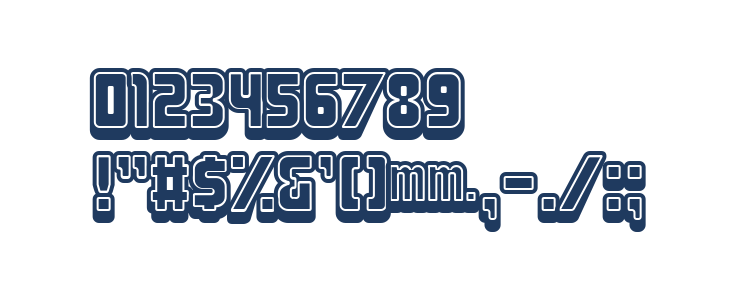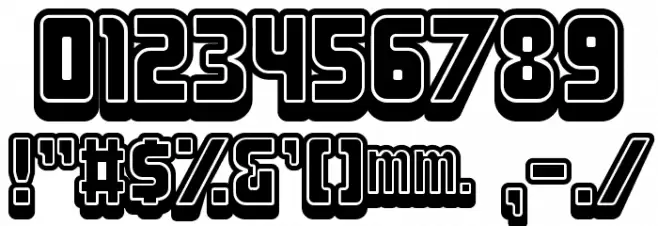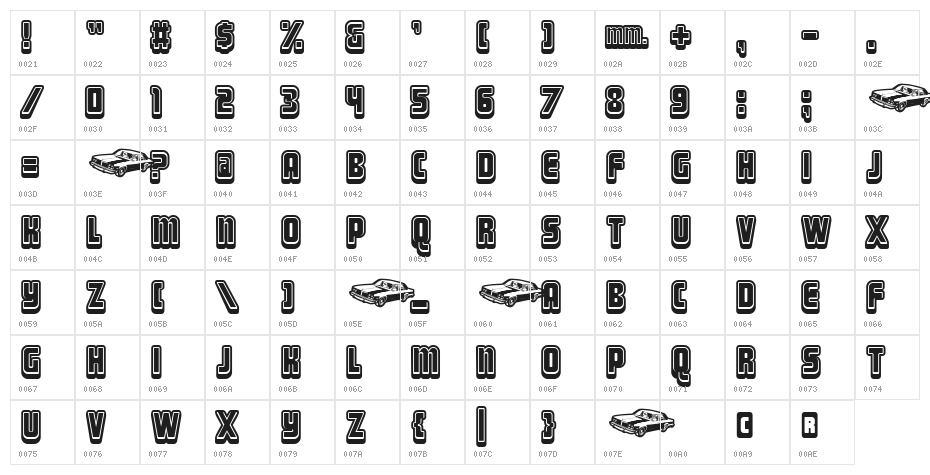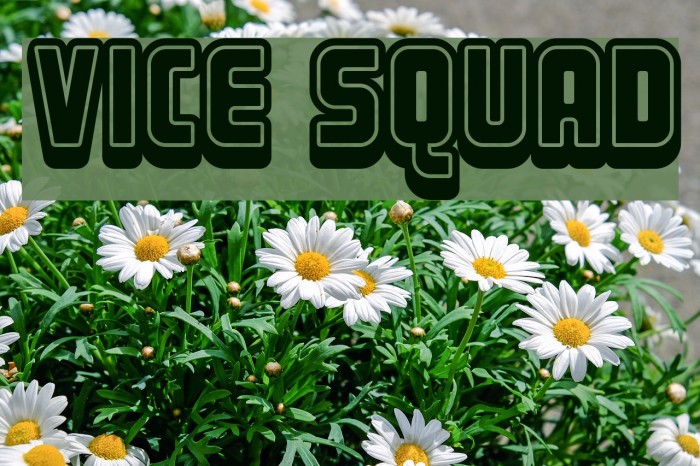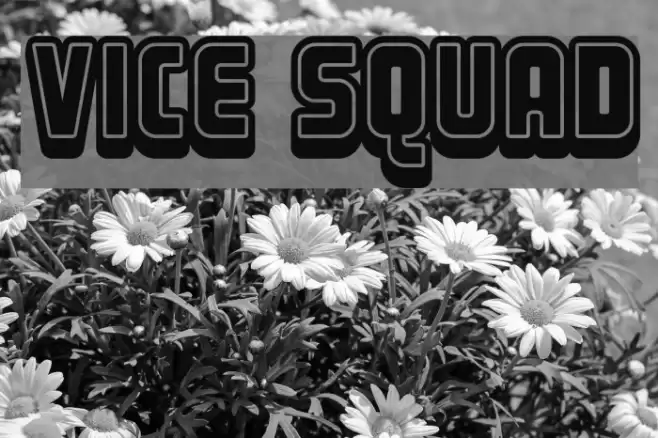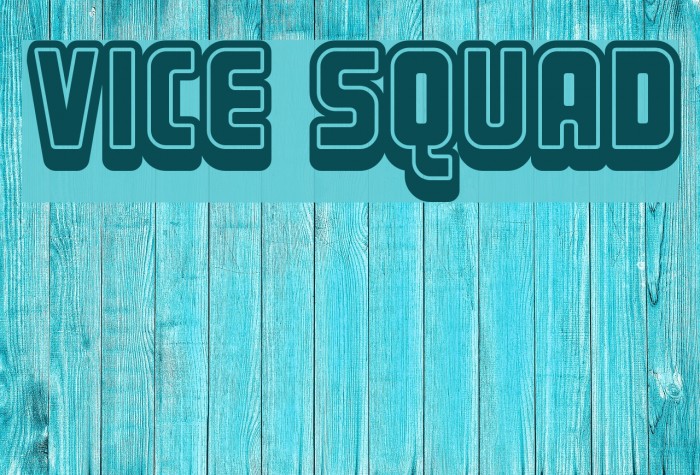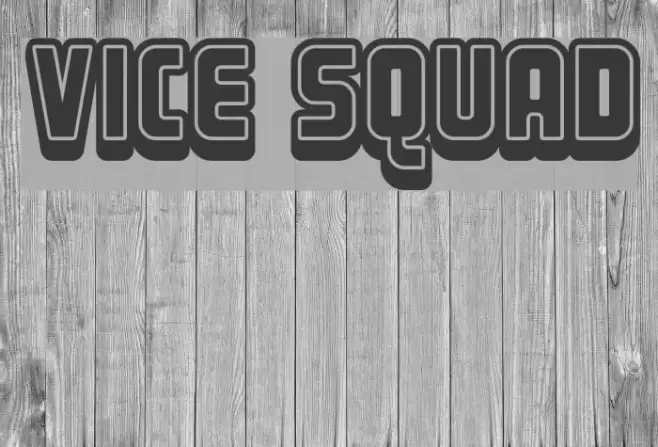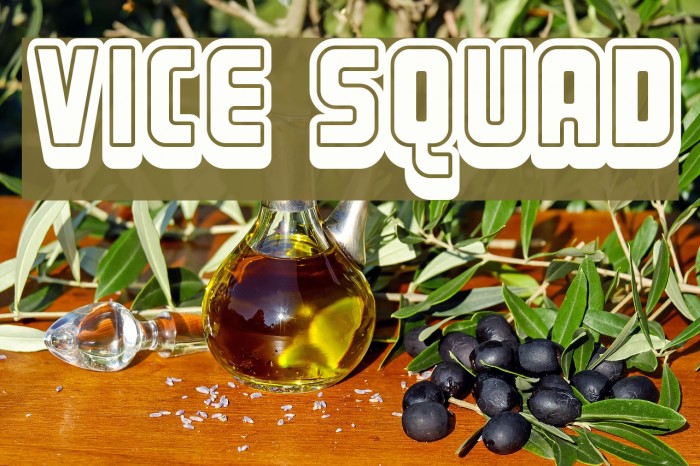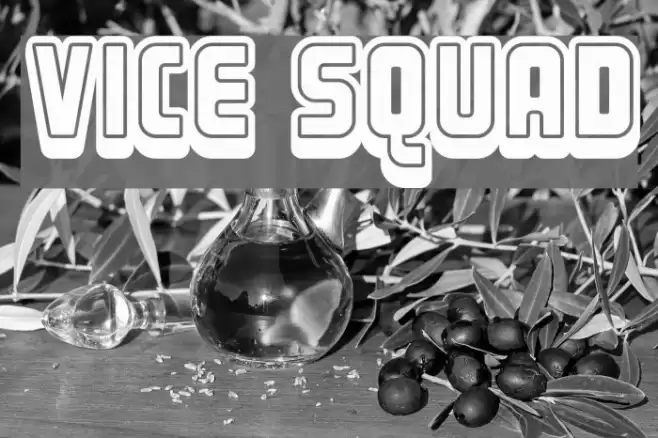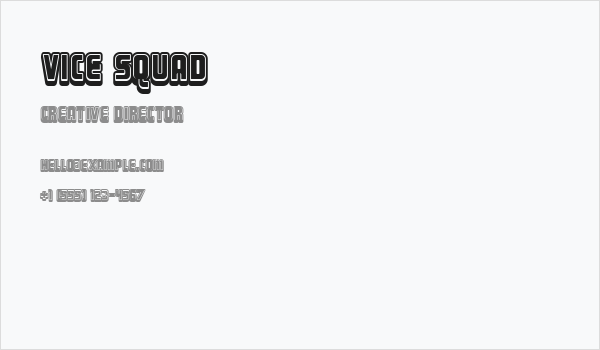
Vice Squad Font
Vice Squad Description
This font features a bold, geometric style with a distinct outline that gives it a three-dimensional appearance. The uppercase and lowercase letters are consistent in their blocky, angular design, creating a cohesive look across the alphabet. The numbers and special characters maintain this aesthetic, ensuring uniformity throughout. The font's thick strokes and outlined edges make it highly visible and impactful, suitable for attention-grabbing designs. Its modern, futuristic vibe is ideal for projects that require a strong visual presence.
| Proposed Projects | Ideal for posters, logos, video game graphics, and any design needing a bold, modern touch. |